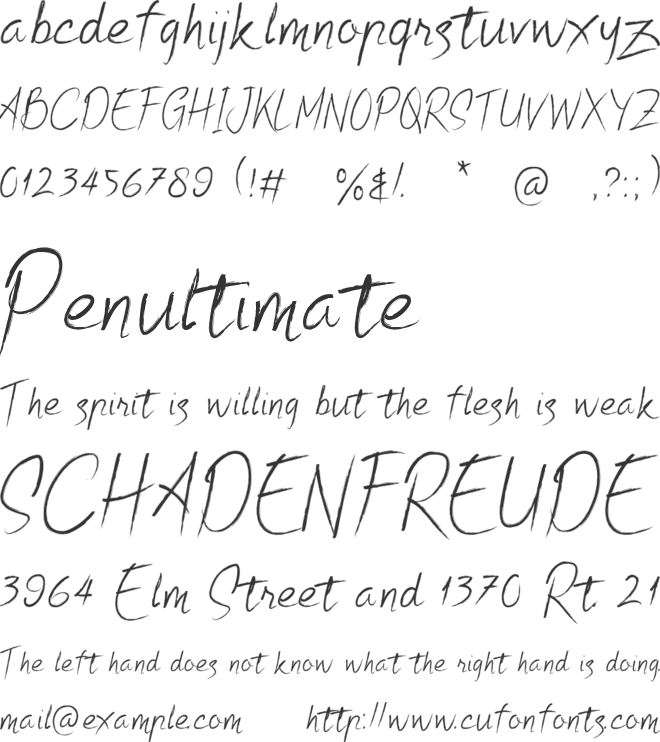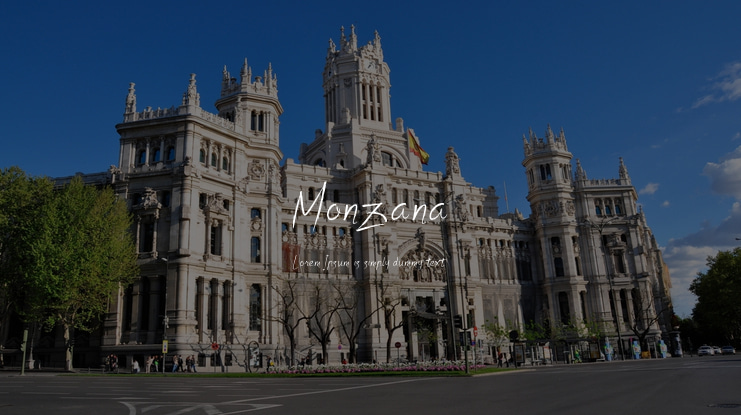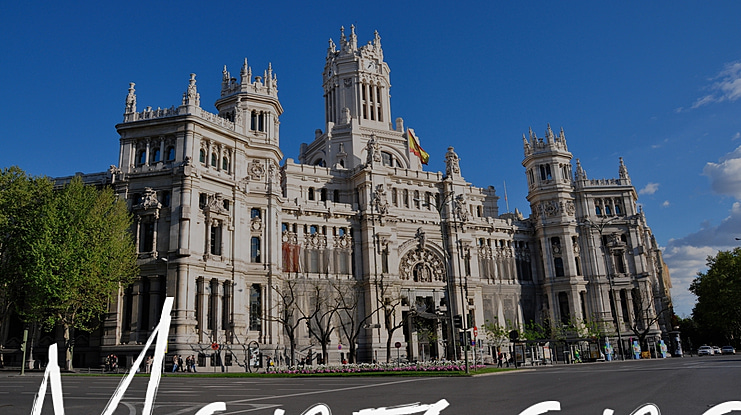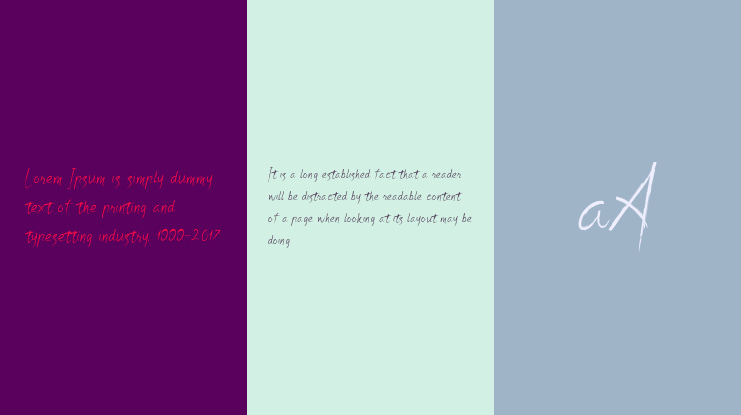
Monzana Font
Monzana Brush Typeface is a hand brush style font. has a distinctive brush curve and grunge effect and rough texture makes this font look natural. so this is a font with a contemporary brush style. There is no problem for long or short texts, so this font can be used in various design works.
You can use this font for Instagram, quotes and other long texts, this font is also unique for one-word text or short typing, which you can use for product brands, company logos, book covers and magazines, each type will look very distinctive. There is also a combination of numeric and punctutation which has become a common element in every font, so dont worry. You only need to apply this font in your product design area. try it.
Monzana font preview